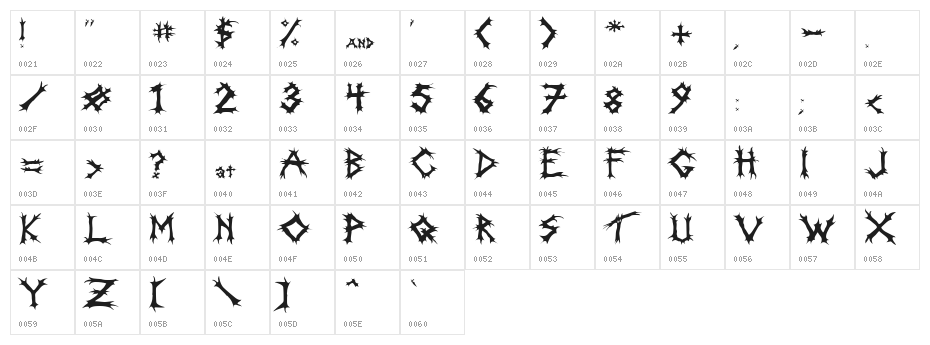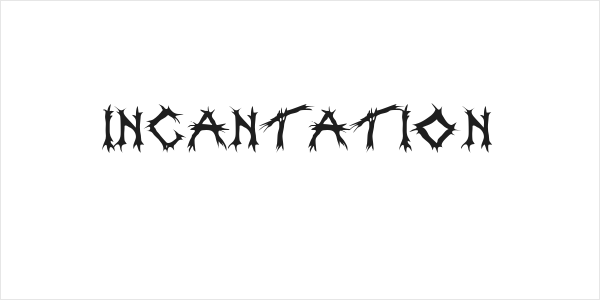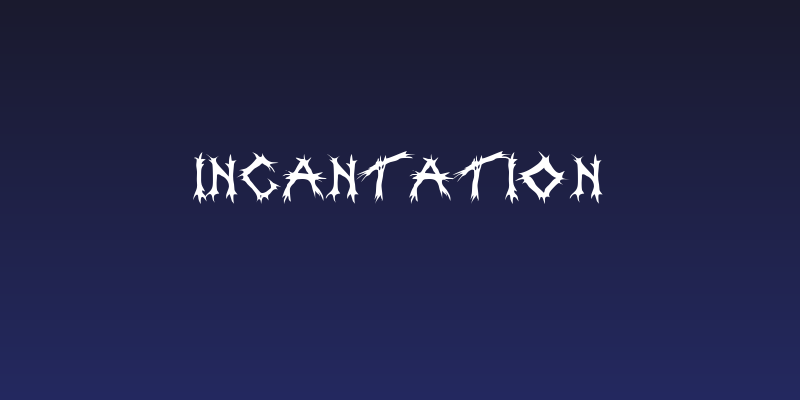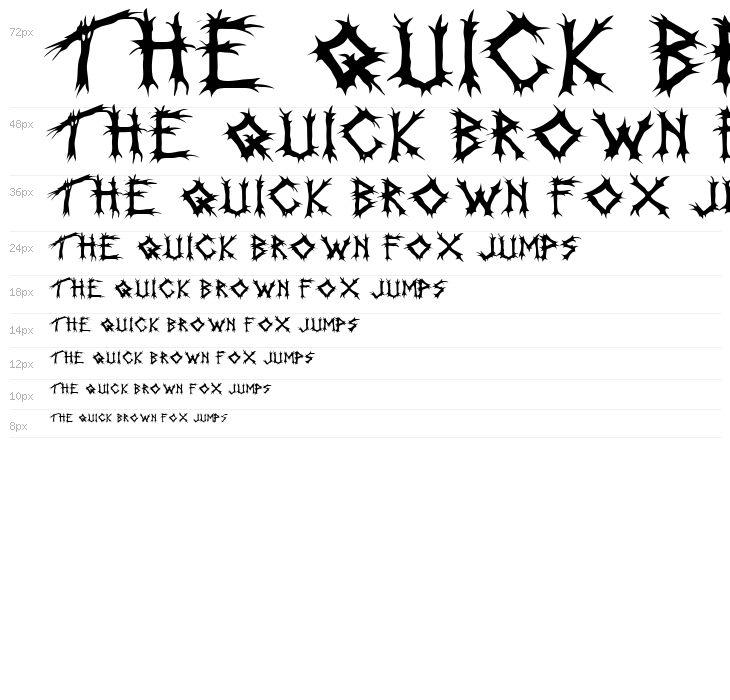
Incantation Font
Incantation Description
This font features a unique, thorny design that gives each character an edgy and aggressive appearance. The sharp, jagged edges and irregular shapes create a sense of danger and intensity, making it stand out as a bold statement piece. The uppercase and lowercase letters maintain a consistent style, with each character appearing as if it is wrapped in barbed wire. Numbers and special characters follow the same aesthetic, ensuring a cohesive look across all text. This font is perfect for projects that require a dramatic and eye-catching design, such as horror-themed posters, album covers, or any creative work that aims to convey a sense of mystery and intrigue.
| Proposed Projects | Ideal for horror-themed posters, album covers, and dramatic creative works. |